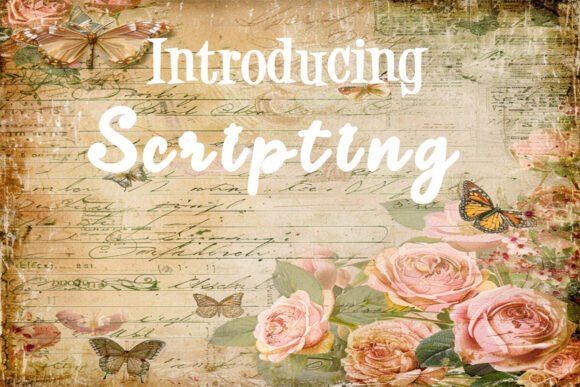
Introduction to Scripting Font
Unleash your creative genius with our exquisite Scripting Font.
Perfectly suited for every facet of your creative journey, its versatile design lends itself seamlessly to an eclectic pool of applications Whether youโre fashioning captivating t-shirts or eye-catching stickers, creating standout branding, designing visually immersive magazines, crafting heartfelt greeting cards, Cricut projects, or dynamic posters, this font is your dependable partner.
Key Features of Scripting Font
Why Choose Scripting Font?
Scripting Font offers exceptional quality and versatility, making it a valuable addition to your design toolkit. Whether you’re creating for personal projects or commercial use, Scripting Font delivers professional results.